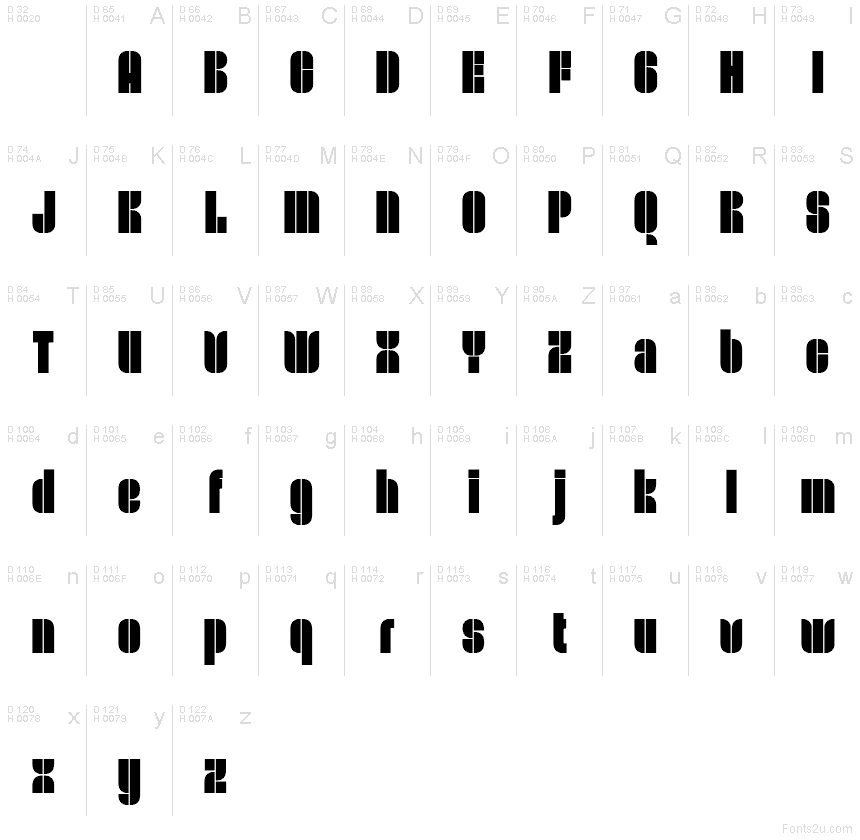
CS Wayne Regular Demo
CS Wayne font by Craft Supply Co. is a free groovy font. It stands out with chunky, inky columns sliced by smooth semicircle cuts—like vinyl grooves pressed into solid black. The tight rhythm and rounded edges give it a lush, modular swing, while the narrow width squeezes big attitude into limited space without feeling cramped.
Using CS Wayne, headlines snap with instant character. It shines on posters, album covers, festival branding, packaging, signage, and punchy social graphics. This free font thrives at oversized scales; add a touch of tracking to let the scooped counters breathe, and pair with a clean geometric sans for body copy that doesn’t compete.